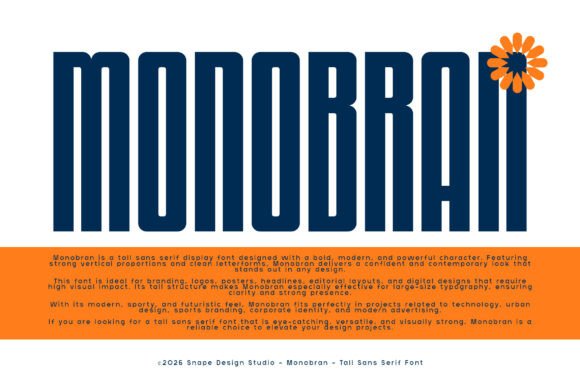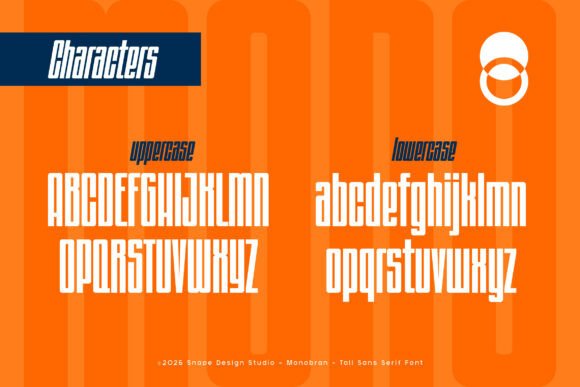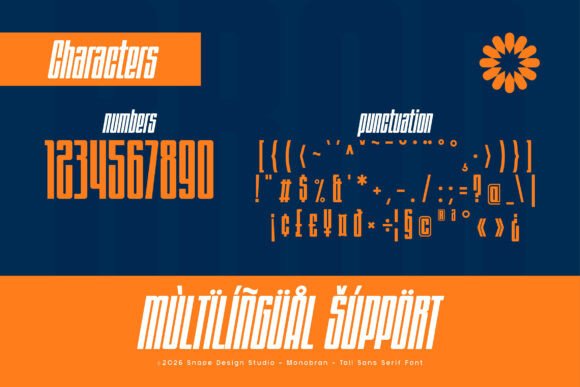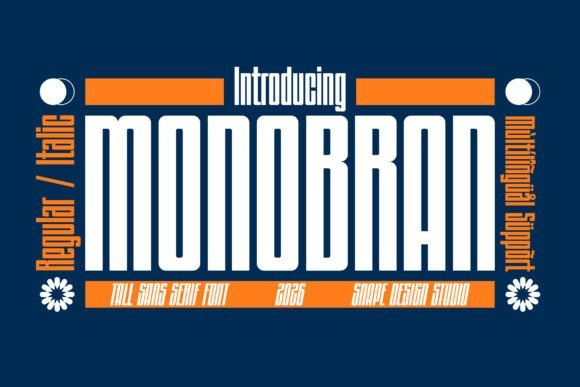
Introduction to Monobran Font
Monobran is a bold and modern tall sans serif display font designed to make a strong visual impact.
With its condensed proportions, clean geometry, and confident letterforms, Monobran is built to stand out in headlines, posters, branding, and editorial layouts This font combines a contemporary industrial feel with a sleek typographic structure, making it perfect for projects that demand clarity, power, and style.
Key Features of Monobran Font
Why Choose Monobran Font?
Monobran Font offers exceptional quality and versatility, making it a valuable addition to your design toolkit. Whether you’re creating for personal projects or commercial use, Monobran Font delivers professional results.